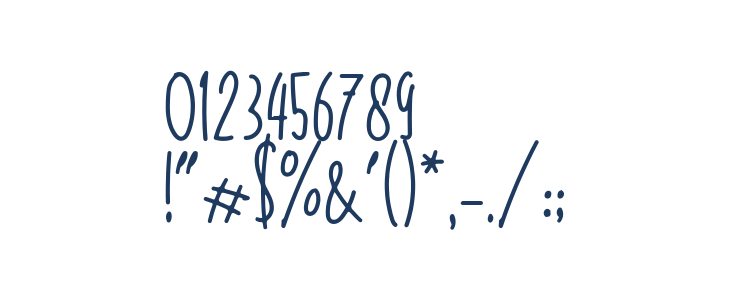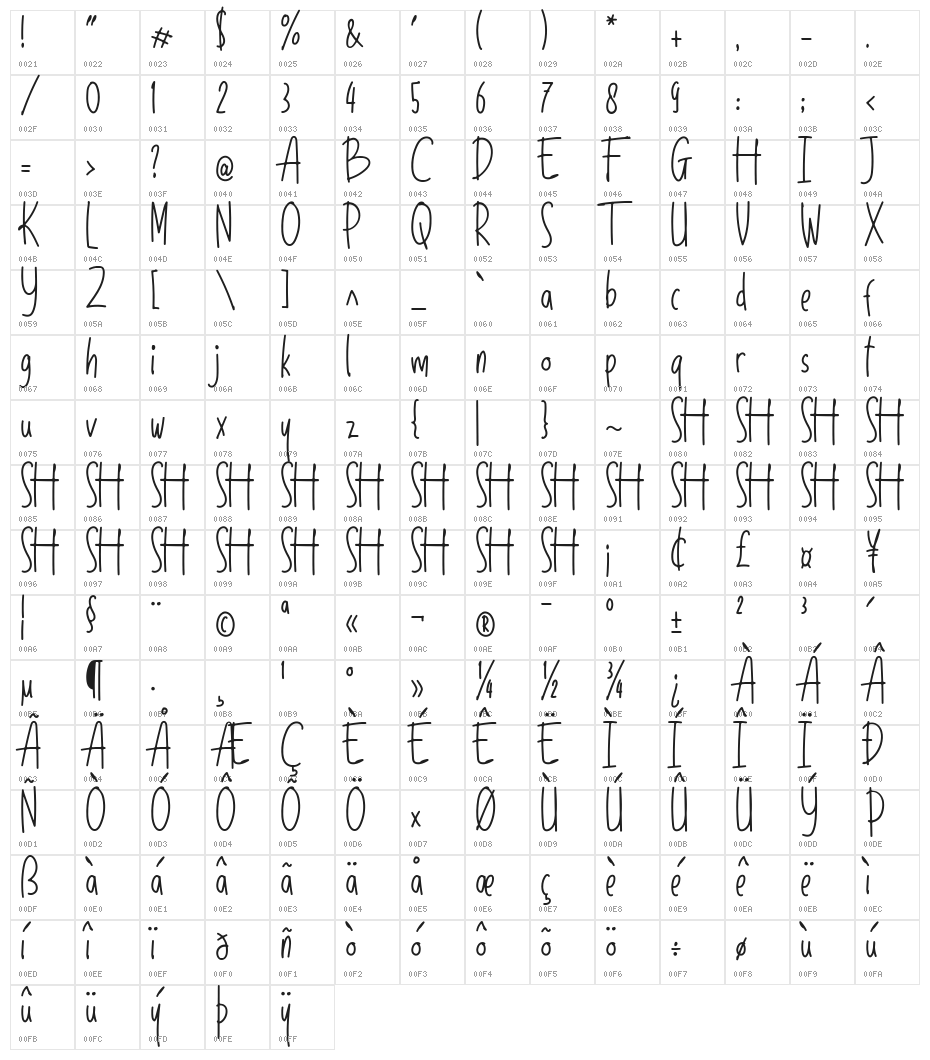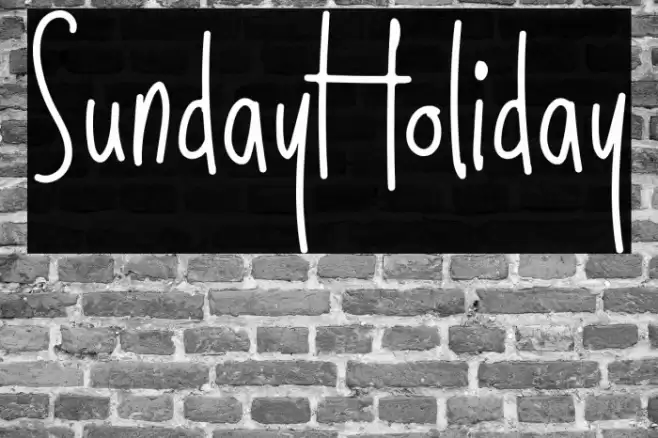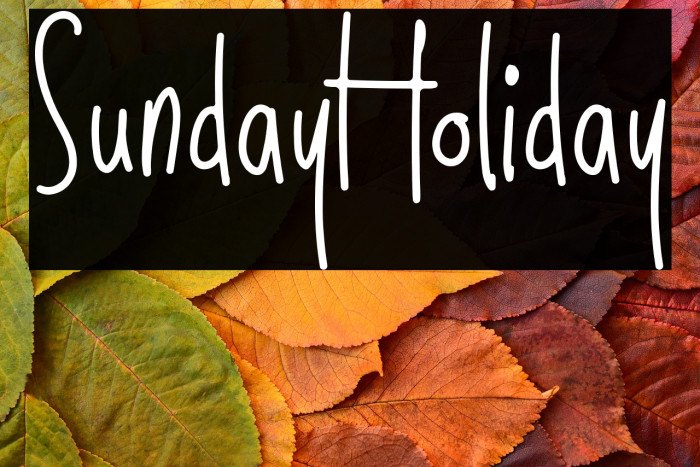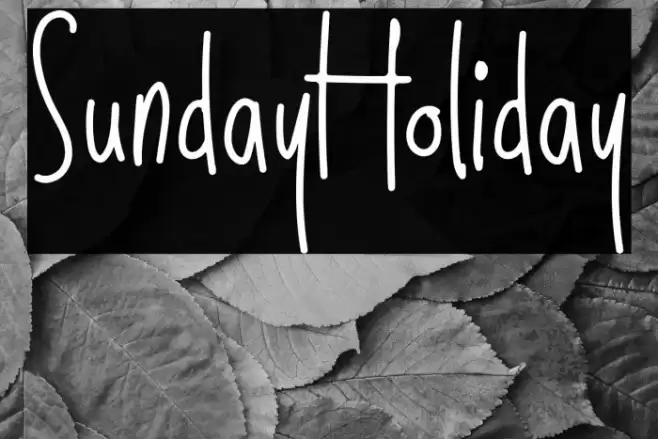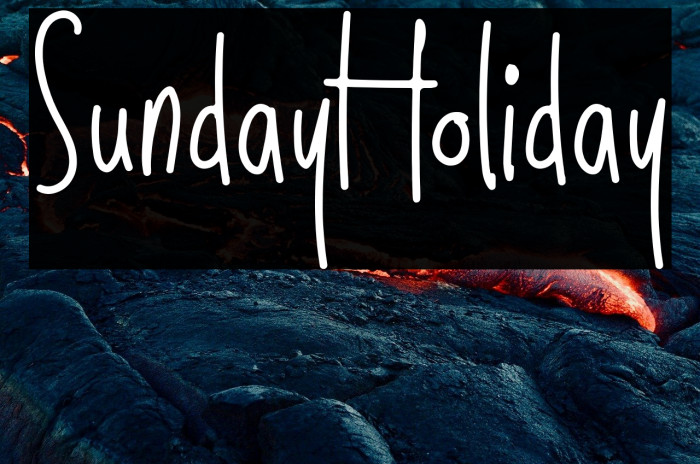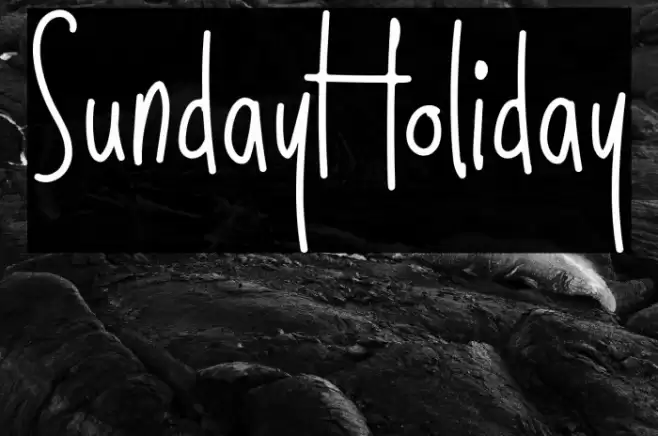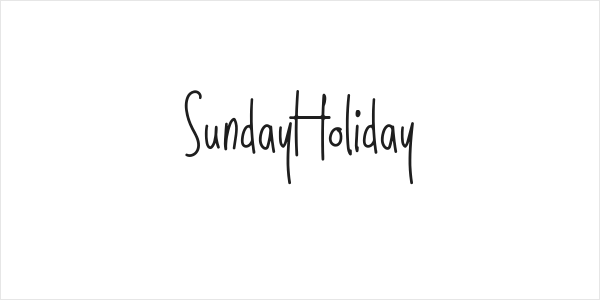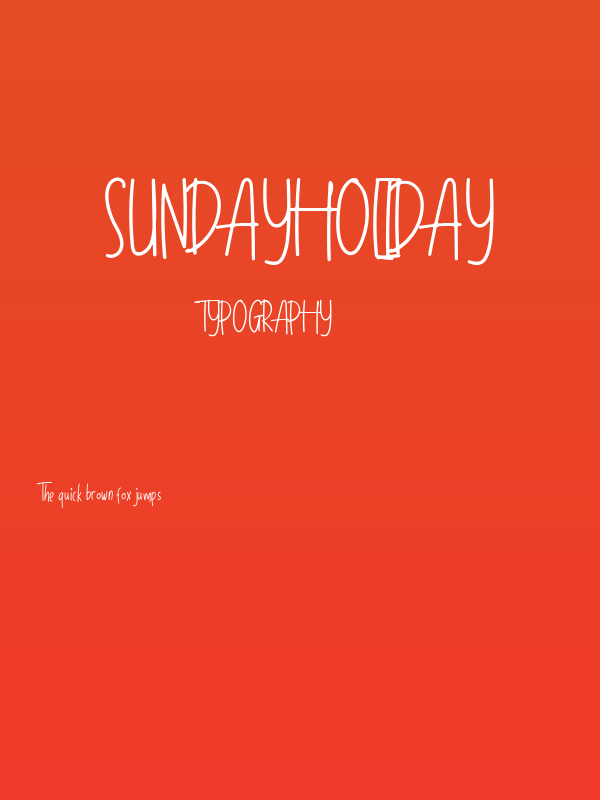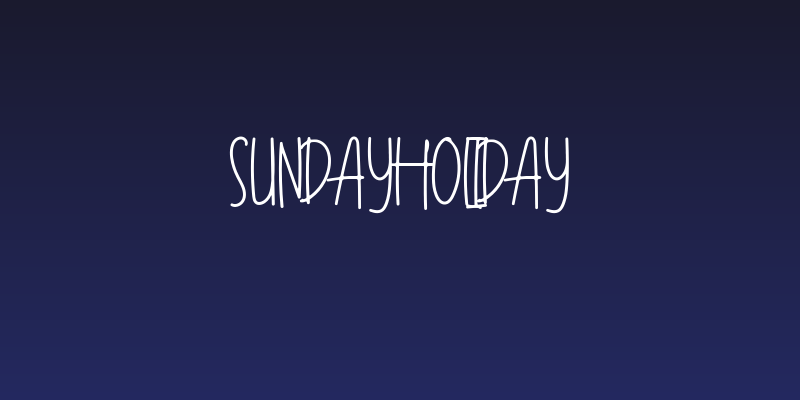
SundayHoliday Font
SundayHoliday Description
This font features a playful and casual handwritten style with tall, narrow characters. The strokes are uneven, adding a whimsical and informal touch. Uppercase letters are bold and slightly irregular, while lowercase letters maintain a consistent flow with a slight slant. The numbers are quirky and match the overall playful aesthetic. Special characters are creatively designed, complementing the font's informal nature. This font exudes a sense of fun and creativity, making it ideal for projects that require a personal and approachable feel.
| Proposed Projects | Perfect for greeting cards, children's books, playful branding, and casual invitations. |